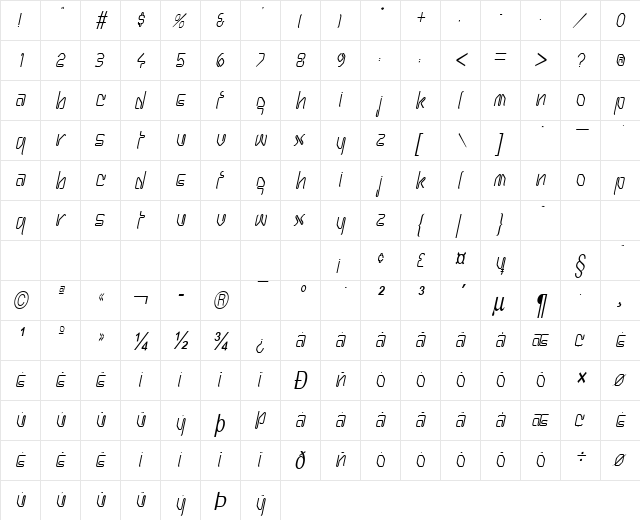
Hanger-Condensed Italic Font Preview
Design Context for Hanger-Condensed Typeface
Hanger-Condensed takes a measured approach to typography — its balanced proportions and neutral character make it a reliable workhorse for both digital and print work. Its italic angle brings a sense of urgency and motion to the letterforms. Its narrow stance lets it pack a punch even in space-constrained designs.